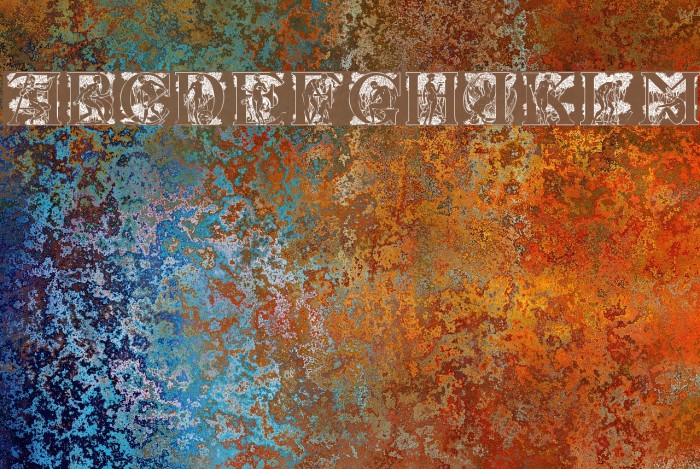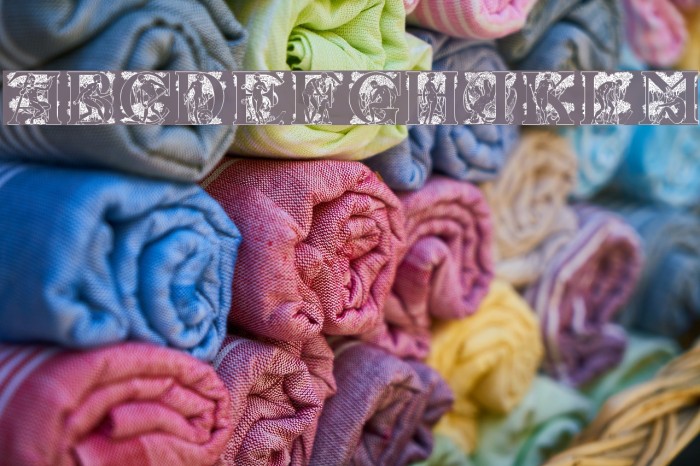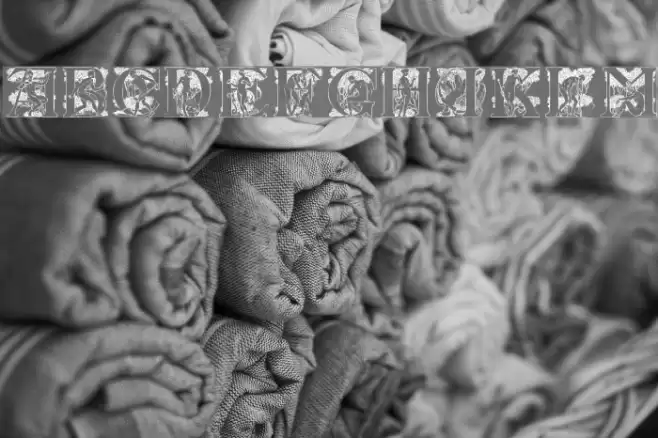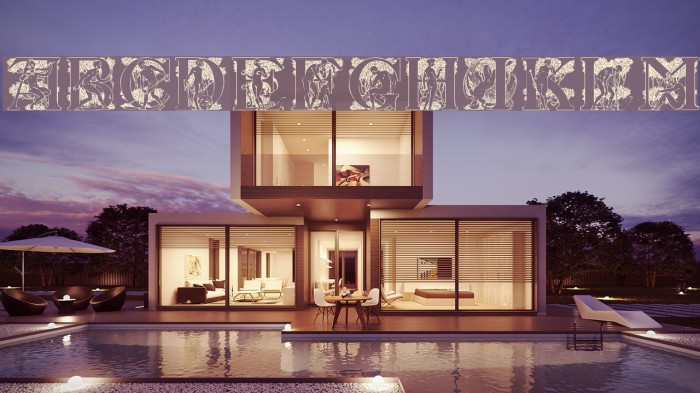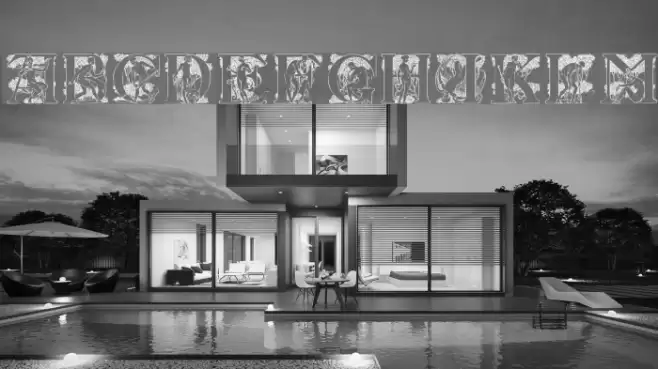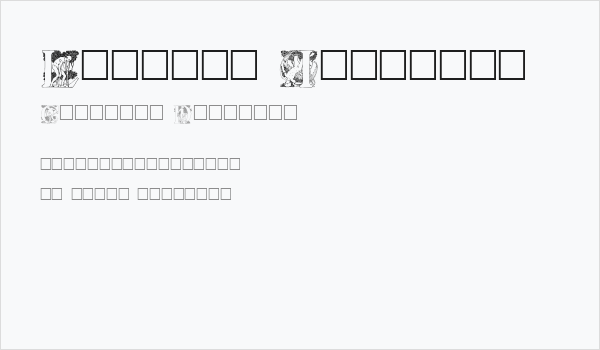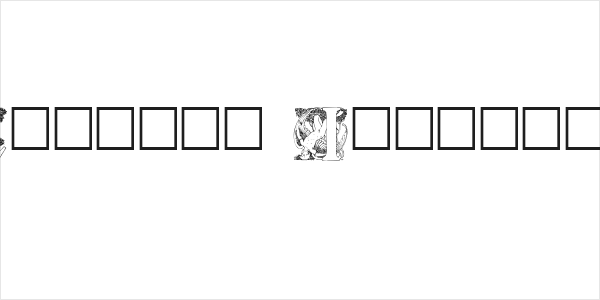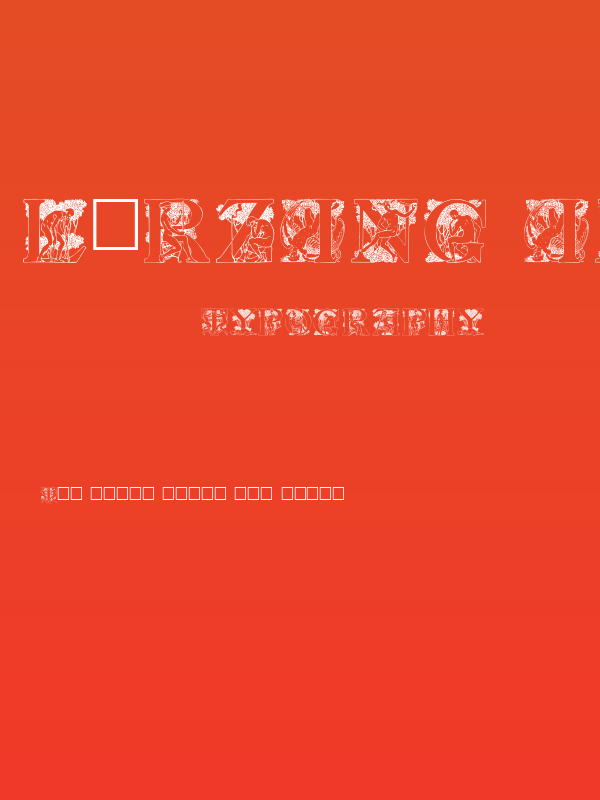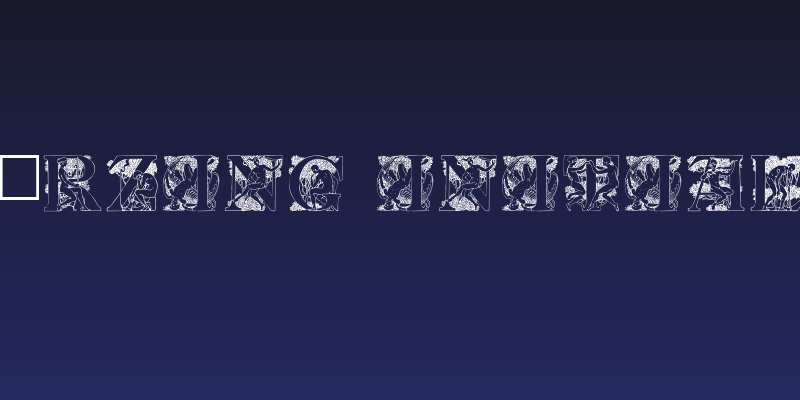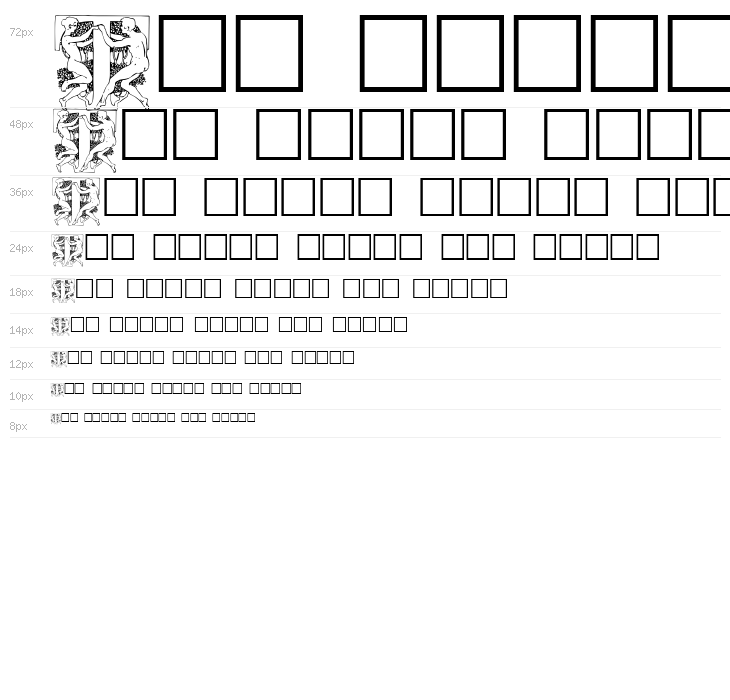
Lurzing Initials Font
Lurzing Initials Description
This font features ornate and decorative uppercase letters with intricate floral and vine-like embellishments. Each letter is uniquely designed with detailed patterns that give it a vintage and artistic feel. The style is reminiscent of old-world craftsmanship, making it ideal for projects that require a touch of elegance and sophistication. The font is highly decorative, focusing on aesthetic appeal rather than readability, which makes it suitable for specific uses where visual impact is prioritized.
| Use Case | Logos, Headlines, Decorative purposes |
| Proposed Projects | Ideal for wedding invitations, vintage-themed posters, book covers, and decorative signage. |